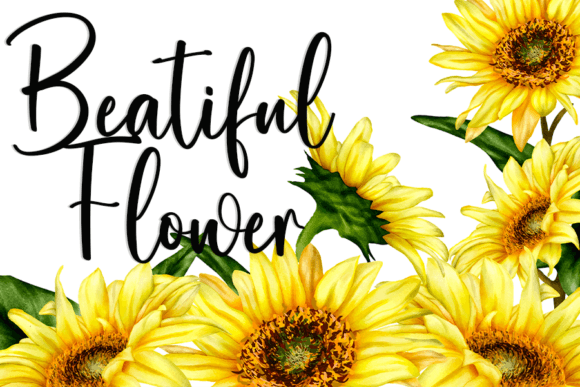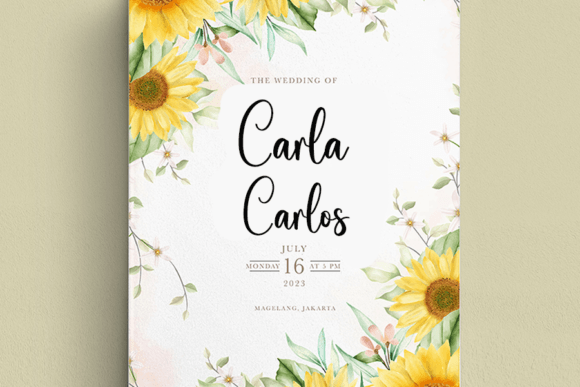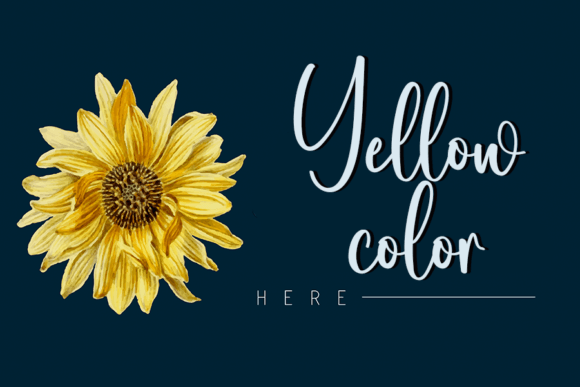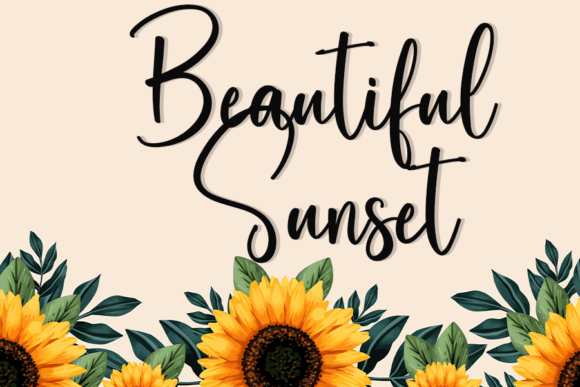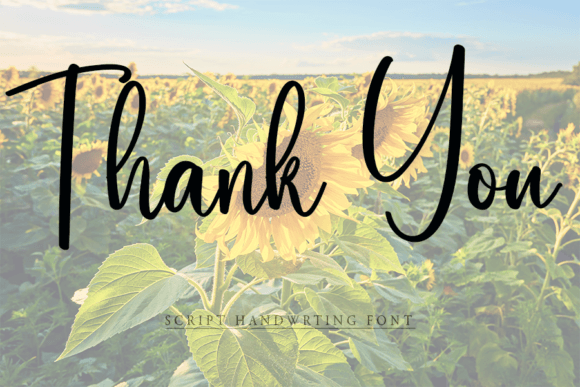
The Elegance of Calligraphy Font: A Designer’s Delight
I’ll never forget the time I was working on a luxury branding project for a high-end jewelry client. I had spent hours perfecting the logo design, but something was missing. The font I had chosen just didn’t have the sophistication and elegance that the brand required. That’s when I stumbled upon Calligraphy Font, and it completely transformed the design. The characters danced along the baseline, adding a touch of luxury and refinement that was exactly what the client needed.
An Honest Review of Calligraphy Font
- ✨ Beautiful, handwritten characters that add a touch of elegance to any design
- ✅ Easy to use and pairs well with a variety of font combinations
- 💫 Features OpenType features, glyphs, and stylistic alternates for added versatility
- 🎨 Perfect for luxury branding, wedding designs, and high-end packaging
While Calligraphy Font is a stunning addition to any design project, there are a few things to keep in mind. 🤔 For example, some of the more intricate characters can be a bit tricky to read at smaller font sizes. ⚠️ Additionally, the font may not be suitable for body text, as it’s best used for headlines and titles.
The Designer Inspiration Behind Calligraphy Font
Calligraphy Font was inspired by the art of traditional calligraphy. The font’s creator was fascinated by the way calligraphers could turn simple letters into beautiful works of art. They wanted to capture the essence of this art form in a digital font that could be used by designers and crafters alike.
| Font Name | Calligraphy Font |
| Author | Black line |
Q: What is Calligraphy Font?
A: Calligraphy Font is a beautiful, handwritten font featuring characters that dance along the baseline.
Q: Is Calligraphy Font suitable for body text?
A: While Calligraphy Font is stunning, it’s best used for headlines and titles. It’s not recommended for body text, as it can be difficult to read at smaller font sizes.
Q: Does Calligraphy Font feature OpenType features and glyphs?
A: Yes, Calligraphy Font includes OpenType features, glyphs, and stylistic alternates, making it a versatile and customizable font.